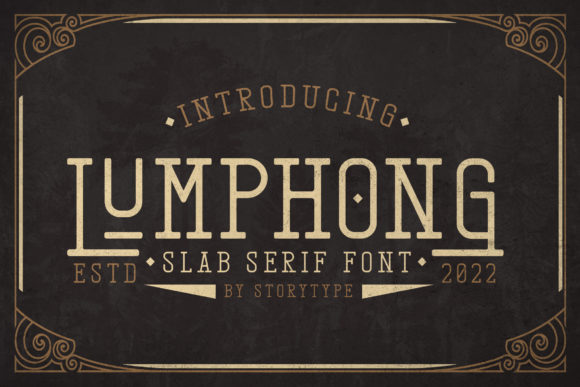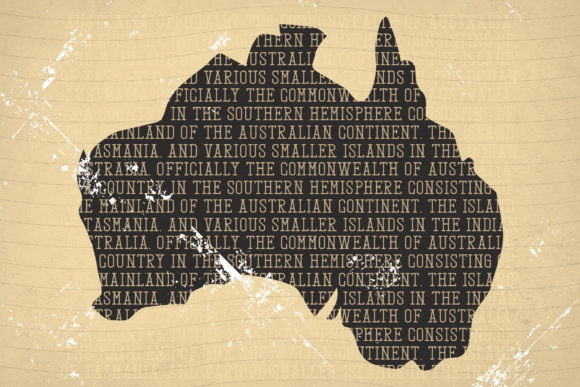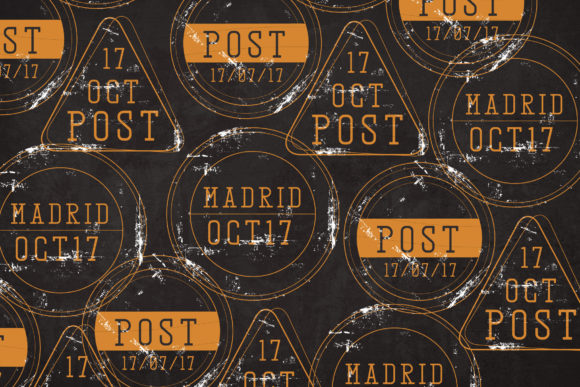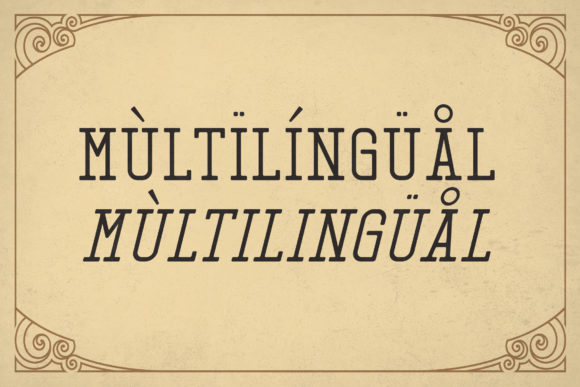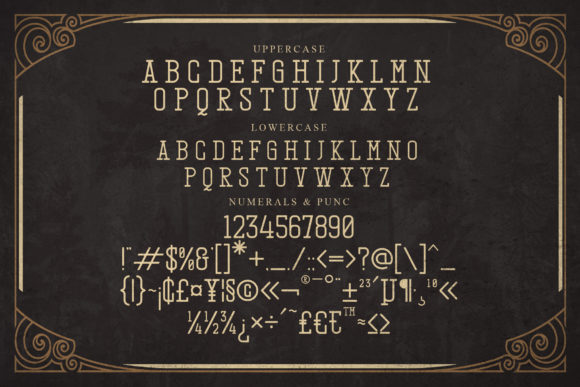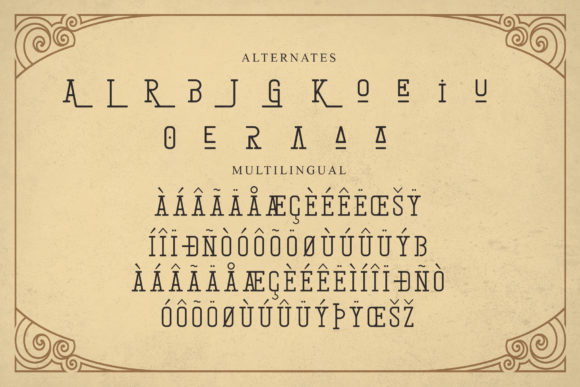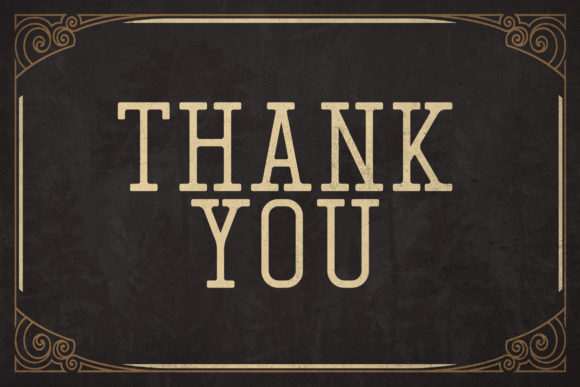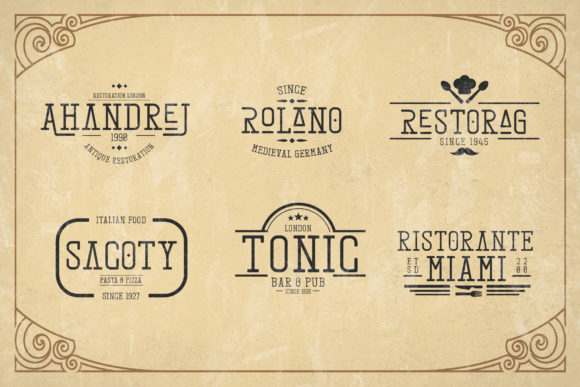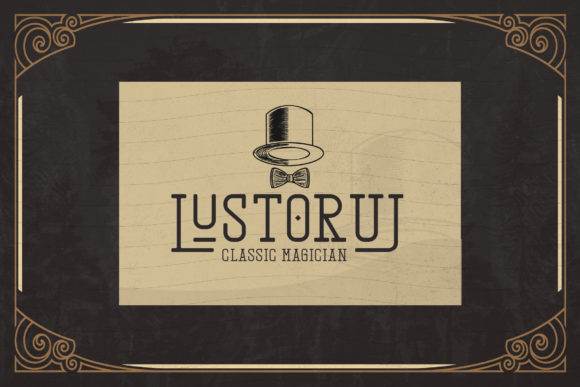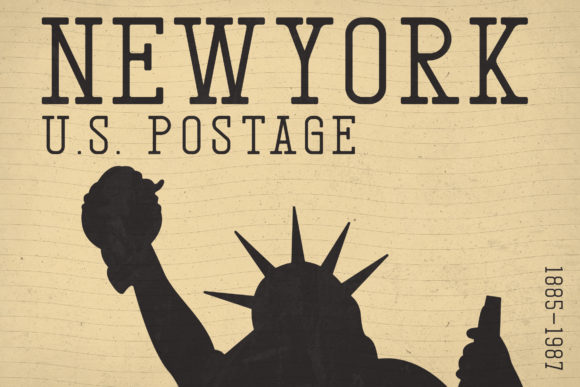
Lumphong
Lumphong: A Vintage-Styled Slab Serif Font
Lumphong is a distinctive slab serif font that combines vintage charm with modern functionality. This meticulously crafted typeface offers a blend of nostalgia and practicality, making it a valuable addition to any designer’s toolkit.
Key Features of Lumphong
• Vintage Style: Evokes a sense of nostalgia with its retro-inspired letterforms.
• Slab Serif Structure: Incorporates the characteristic thick, rectangular serifs typical of slab serif fonts.
• PUA Encoded: Allows easy access to all glyphs and ligatures for enhanced design flexibility.
• Highly Detailed: Features intricate design elements that add depth and character.
• Neat Craftsmanship: Demonstrates careful attention to detail in its construction.
• Versatile Application: Suitable for a wide range of vintage-inspired design projects.
Ideal Uses for Lumphong
Lumphong’s unique characteristics make it particularly well-suited for:
• Vintage-inspired branding and logo design
• Retro-style packaging and labels
• Book covers and editorial layouts with a nostalgic feel
• Poster and advertisement designs reminiscent of bygone eras
• Website headers and digital content with a vintage aesthetic
• Signage and display typography for historical or retro-themed projects
When incorporating Lumphong into your designs, consider these tips:
• Use for headlines or short blocks of text to showcase its vintage style and intricate details
• Experiment with different sizes to highlight the font’s craftsmanship
• Take advantage of the PUA encoding to access special characters and ligatures
• Utilize its vintage look for projects that require a touch of nostalgia
Lumphong is an excellent choice for designers looking to add a vintage-styled slab serif font to their typographic toolkit. Its combination of retro charm and modern functionality makes it stand out in the world of typography. Whether you’re working on logo designs for brands seeking a nostalgic feel, creating layouts for retro-inspired content, or developing projects that require a touch of vintage elegance, Lumphong offers the perfect blend of style and practicality.
Furthermore, Lumphong’s PUA encoding and detailed craftsmanship allow it to shine in various contexts. From vintage-inspired designs to more contemporary layouts that need a touch of retro flair, this font can elevate your projects. Its highly detailed style works particularly well in designs that require a thoughtful and nostalgic mood.
In conclusion, Lumphong is a font that truly captures the essence of vintage typography while offering modern convenience. Its ability to work well in both retro-style projects and contemporary designs that require a vintage touch showcases its flexibility. For those looking to add a dash of nostalgia with meticulous attention to detail, Lumphong can even enhance themed creations with its unique, vintage-inspired style. It’s an incredible asset to any font library, with the potential to elevate any creation that calls for a touch of vintage charm.